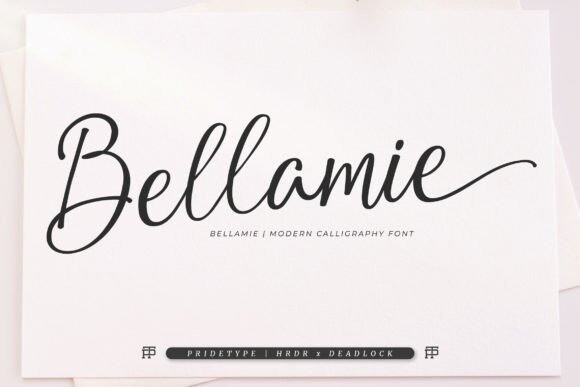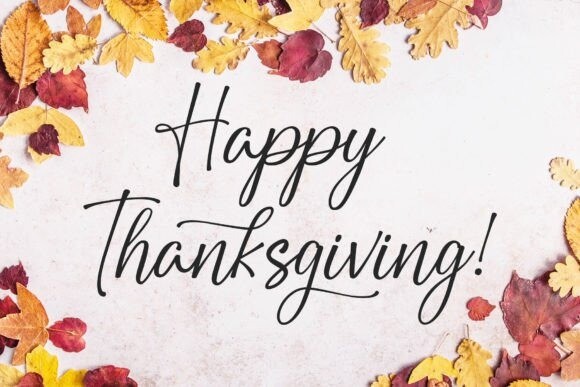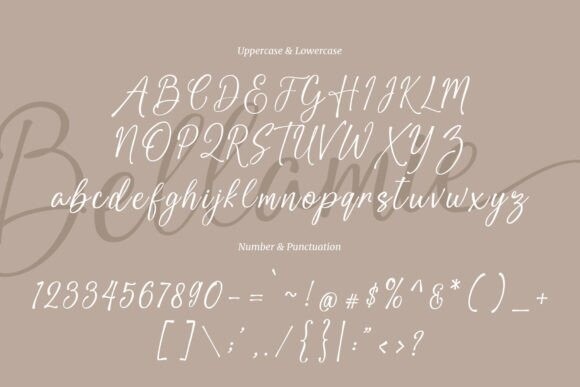
Bellamie Font
Bellamie Font with a smooth shape has a calm and pleasant impression. With a cute style, it looks stunning on wedding invitations, quotes, greeting cards, eye-catching social media posts, thank you cards, and many other designs.